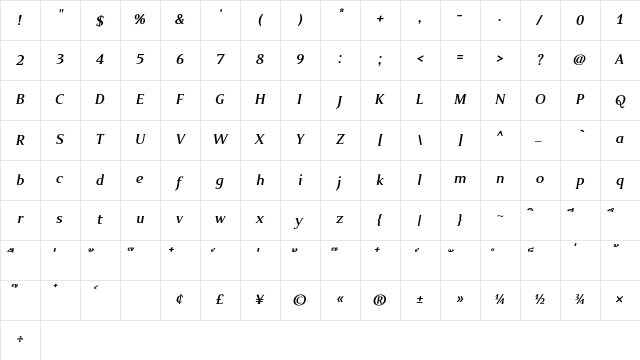
Complete MP DBBangPood Bold It glyph index. Displaying only characters natively supported by MP DBBangPood Bold It font.
MP DBBangPood is a composed and adaptable typeface that performs quietly and consistently across a wide range of design contexts. Its bold stroke weight gives it real presence on the page.